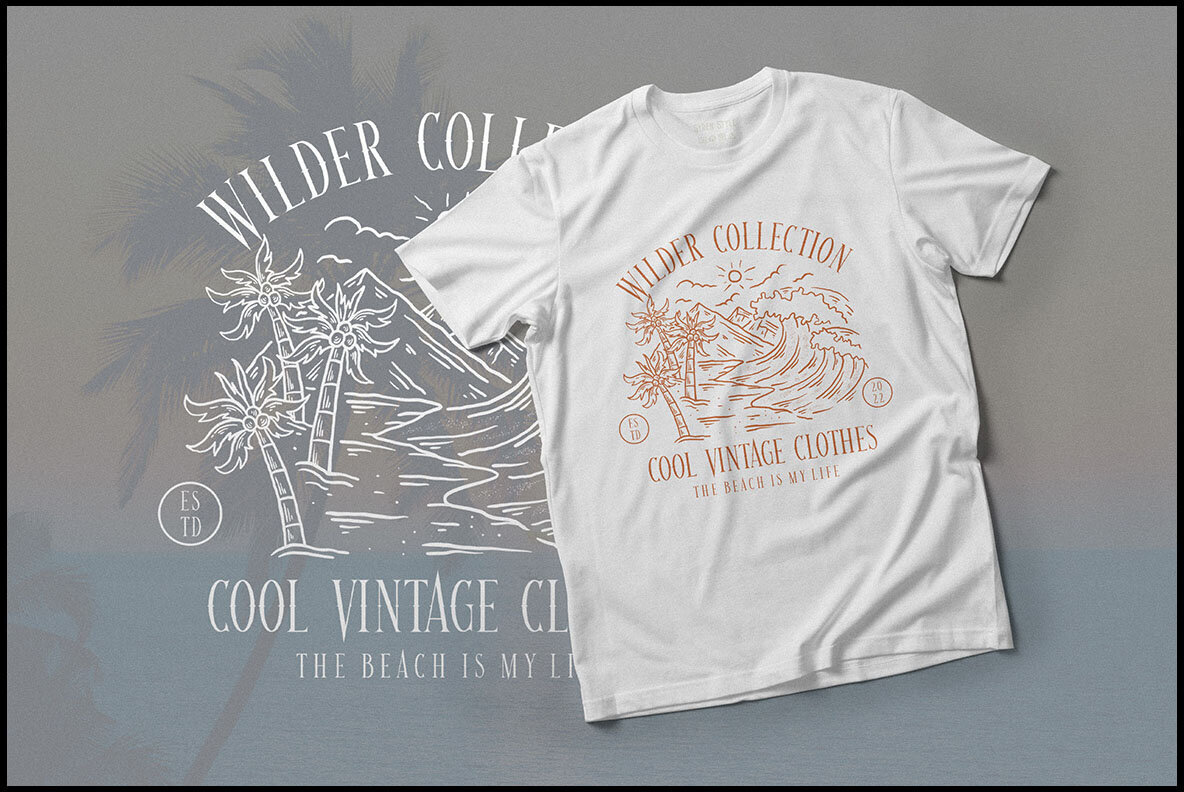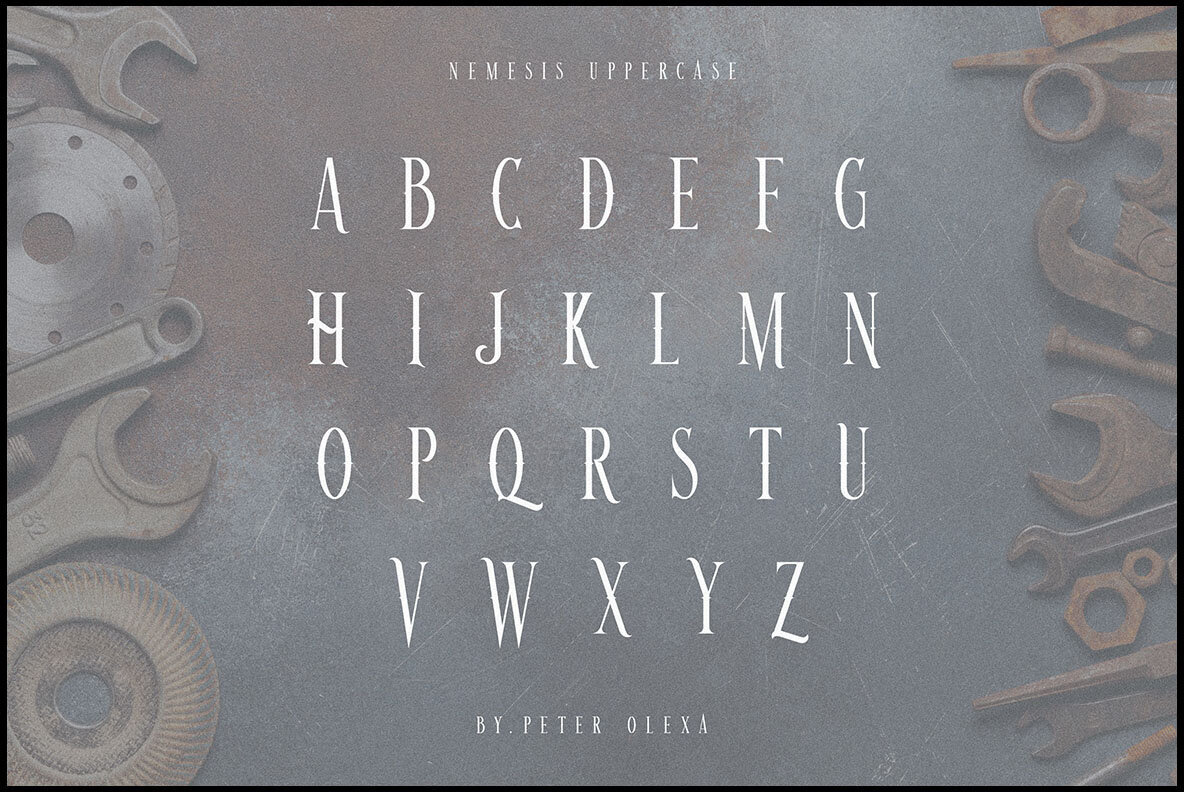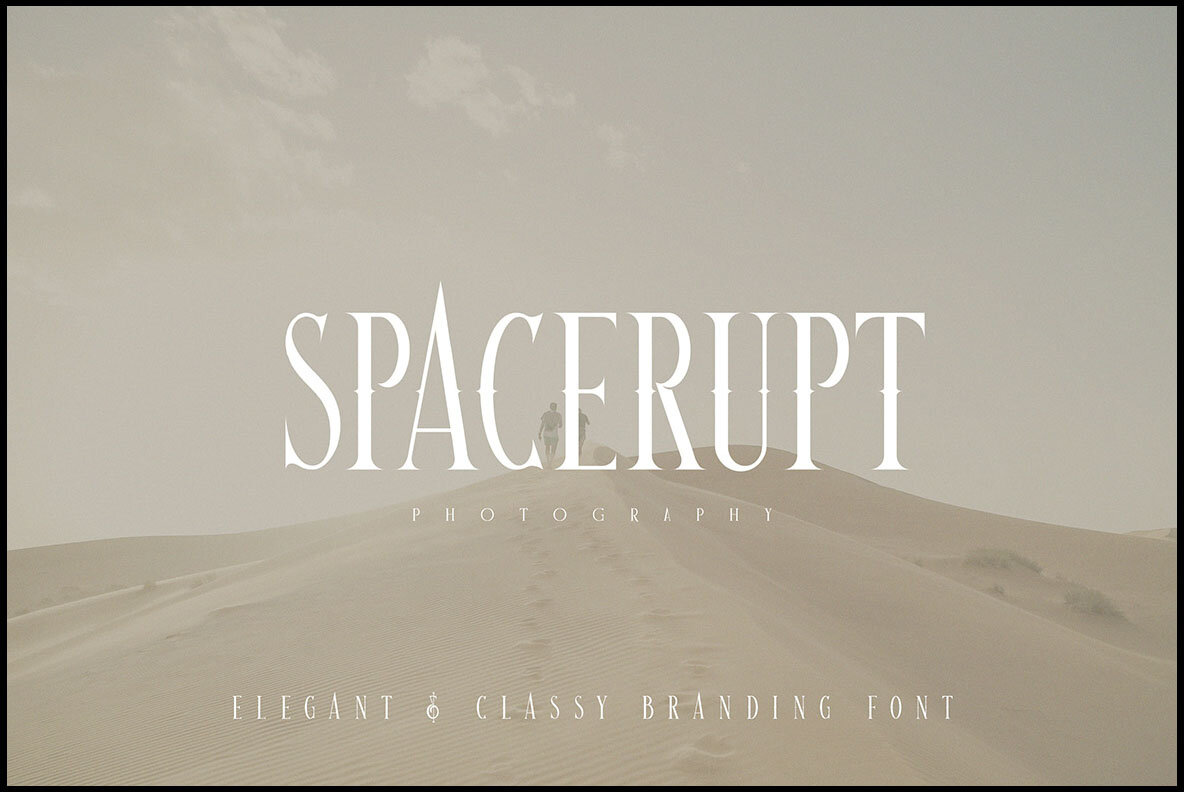
Nemesis Font
Nemesis Regular
Nemesis by Peter Olexa is a trendy, modern serif font that beautifully blends vintage and retro elements with a clean and condensed style. Perfect for creating logos and branding projects that need a touch of class and nostalgia.Nemesis: A Vintage and Modern Serif Font